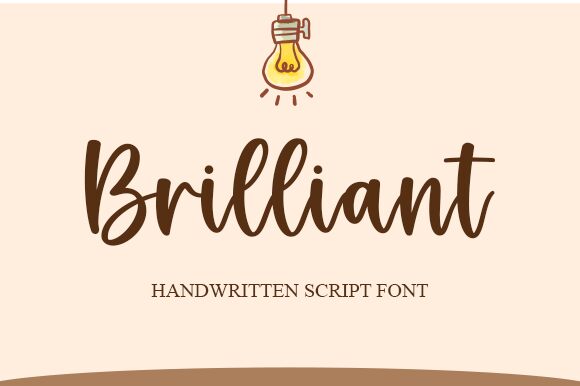
Brilliant, a captivating handwritten font created by Nirmala Creative, infuses charm and elegance into any project. Its semi-bold weight adds a touch of sophistication while maintaining its approachable appeal. Perfect for invitations, stationery, and branding materials, this font effortlessly conveys creativity and personal connection. From wedding invites to social media graphics, Brilliant brings warmth and authenticity to your designs. With its organic strokes and unique character variations, this typeface is an ideal choice for bloggers seeking to captivate their readers or businesses aiming to stand out in the digital landscape.
Brilliant